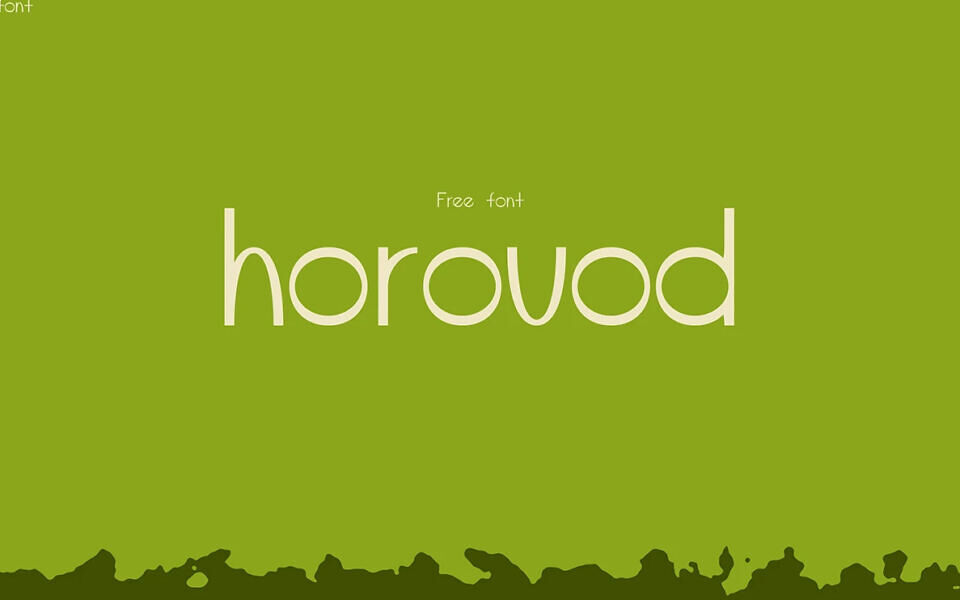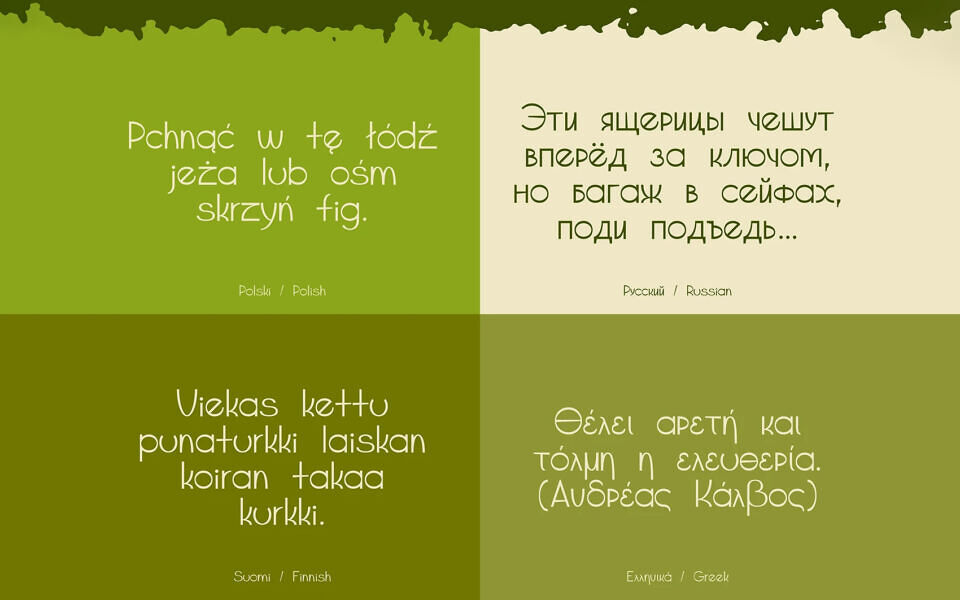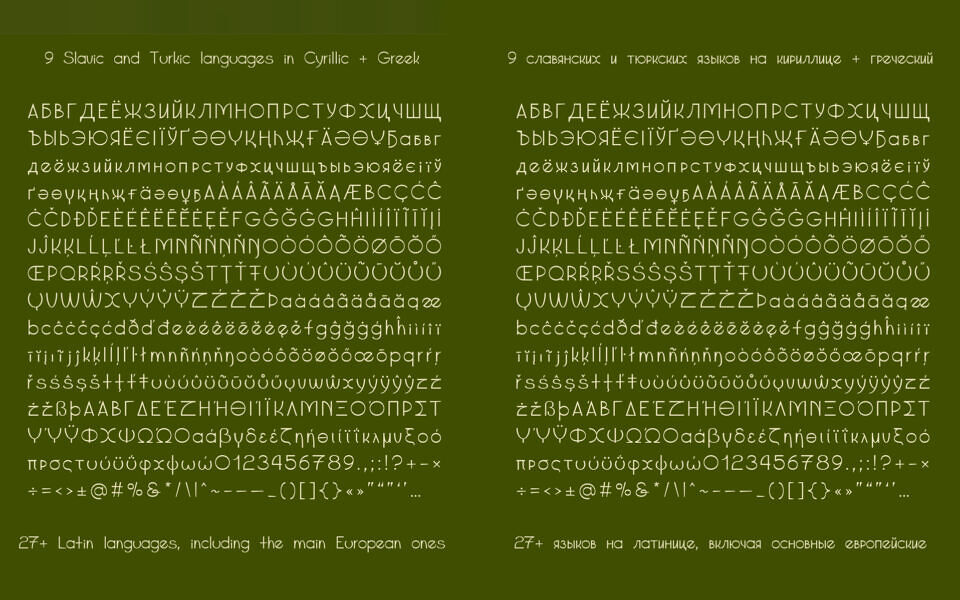
Horovod is a free, minimalist sans-serif font created by Nata Georgiadi (Natalia Mavromati). Its style is characterized by clean, thin lines and rounded forms, giving it a modern and elegant feel.
The font is highly versatile, supporting a wide range of languages, including Latin, Cyrillic, and Greek alphabets, as well as various special characters. Its simple yet refined appearance makes it suitable for headlines, branding, and other design applications.